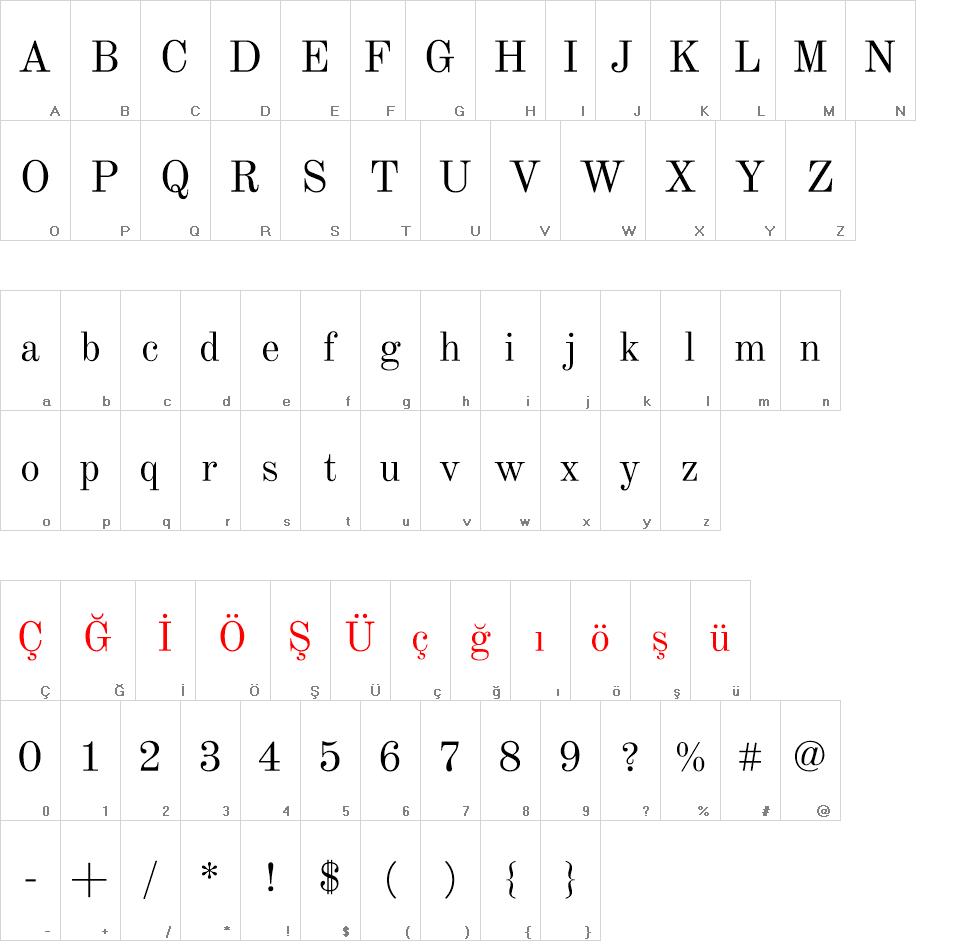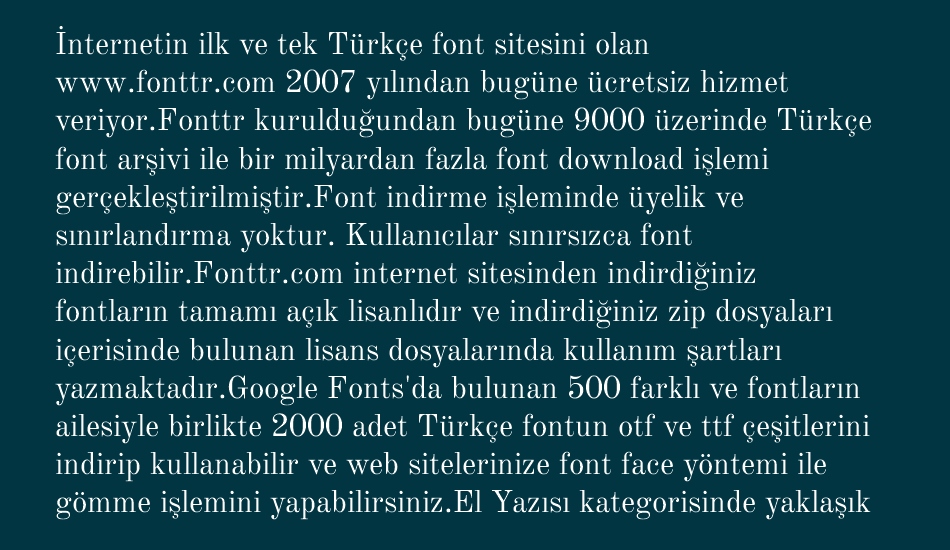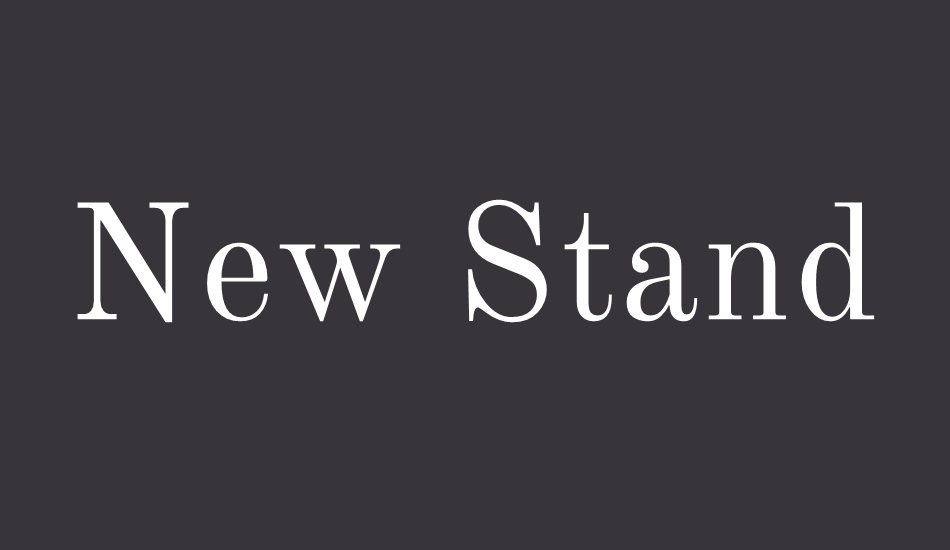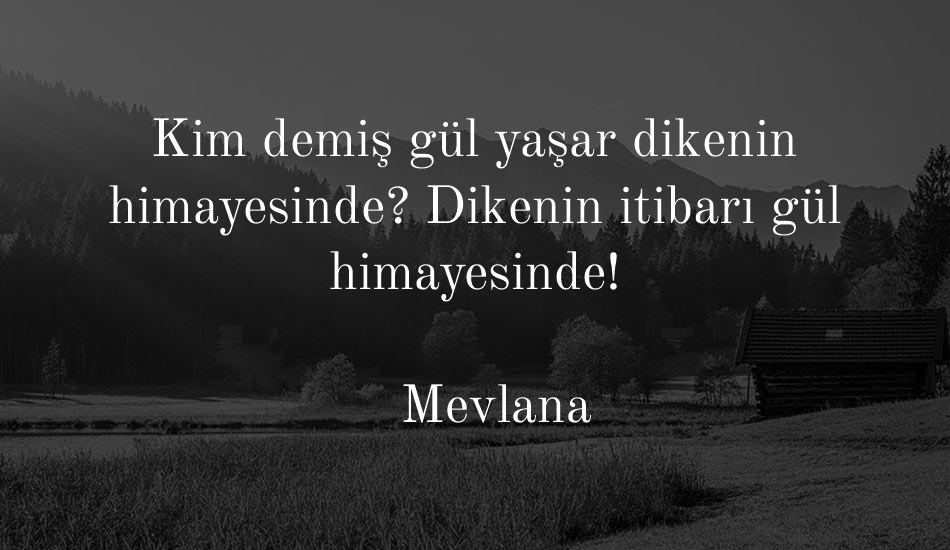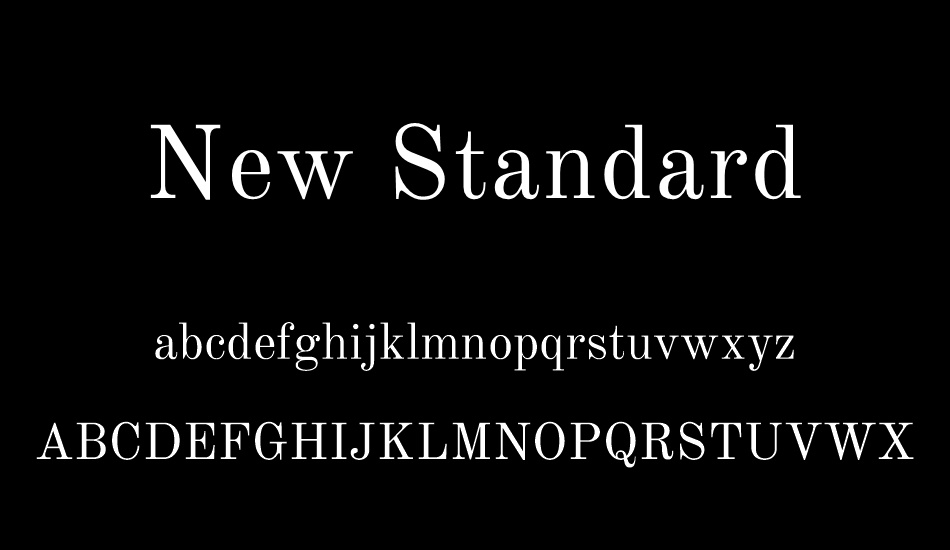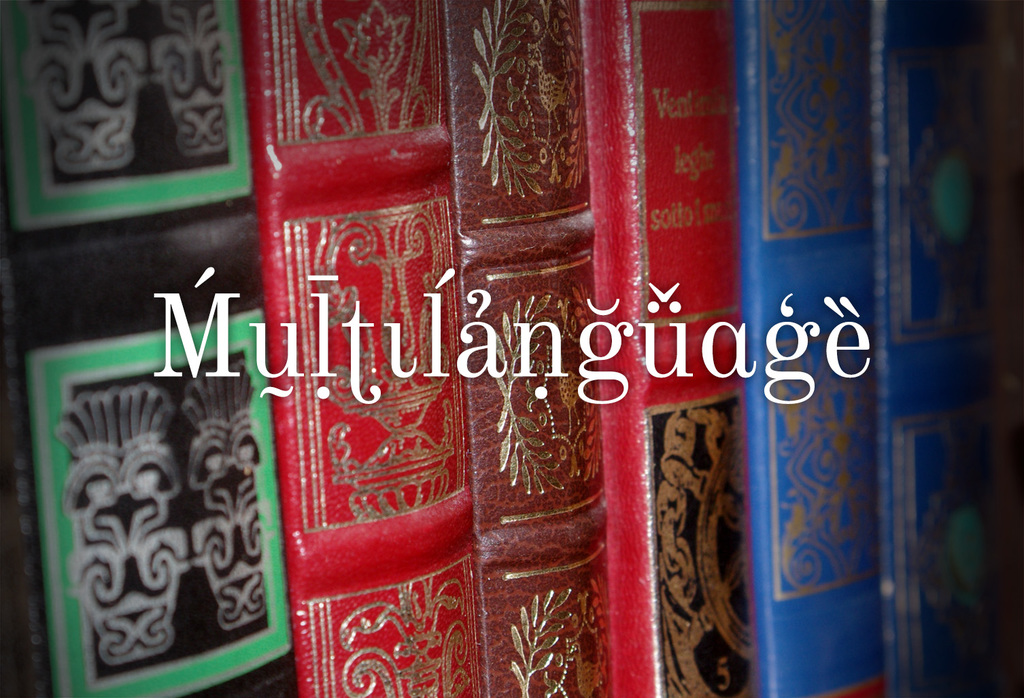
New Standard font
New Standard
For those who still had not known this “little” masterpiece, the Old Standard family of typefaces, designed by Alexey Kryukov, is a reinterpretation of the modern-classicist typeface in use since the nineteenth century. The typeface was the most used from the late nineteenth century, but it was completely abandoned in the second half of the ‘900. Today it has a distinctly retro taste that can be employed, just because of these characteristics, in markedly elegant contexts like fashion, science or refined typography.
Fell in love from the start of this beautiful font, of which there are unfortunately only three styles (Regular, Italic, Bold, it’s missing the Bold Italic), we started to upgrade the normal style, renaming the font as New Standard. The curves have been converted into PostScript, the glyphs were centered in their window, ligatures were added (in OTFeature), missing glyphs were added in the following Unicode blocks:
- Latin Extended-A
- Latin Extended-B
- IPA Extensions
- Greek and Coptic
- Cyrillic (which lacks the additional Cyrillic Supplement)
- Phonetic Extensions (not whole)
- Latin Extended Additional
- Greek Extended
- General Punctuation
- Superscripts and Subscripts
- Letterlike Symbols (not whole)
- Number Forms
- Arrows
- Mathematical Operators
- Miscellaneous Technical
- Geometric Shapes (not whole)
- Miscellaneous Mathematical Symbols-A
- Latin Extended-C (not whole)
- the numbers were moved to the same height as the upper case and the curves of various glyphs were smoothed.
Soon we will proceed the same way with the Italic and Bold, and finally it will also add Bold Italic to complete the set.